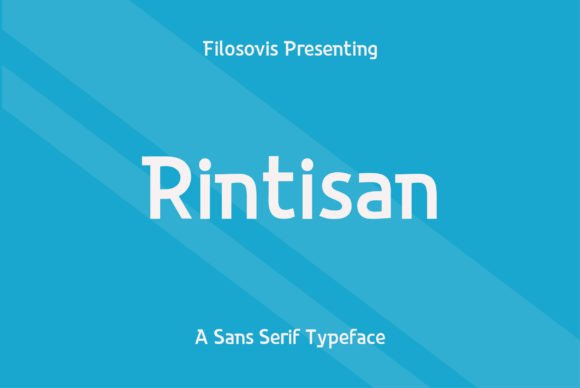
Journey into the realm of visual artistry, where the boundaries of creativity dissolve and the power of fonts unveils a world of boundless possibilities. Allow us to introduce you to the extraordinary Rintisan Font, a masterpiece crafted with meticulous care to redefine the art of modern logos and typography.
The Rintisan Font, a sans serif masterpiece, transcends the ordinary and propels you into a realm of distinctive visual storytelling. Its sharp edges and clean lines exude an aura of elegance, effortlessly elevating your designs and capturing the essence of contemporary aesthetics.
Picture this: your brand's logo, adorned with the Rintisan Font, becoming an emblem of sophistication and innovation. Its sleek curves and confident strokes command attention, leaving an indelible impression on your audience. Witness the transformation as your marketing materials, website, and social media presence radiate with a captivating essence that sets you apart from the mundane.
The Rintisan Font is a versatile chameleon, seamlessly adapting to a myriad of creative endeavors. Whether you're a seasoned designer seeking to elevate your projects or a budding entrepreneur yearning for a distinctive brand identity, this font is your steadfast companion. Unleash your imagination and let the Rintisan Font ignite the spark of brilliance within your designs.
Experience the allure of Rintisan Font and witness how it effortlessly captivates your audience, leaving them spellbound by your brand's magnetic pull. Its modern allure transcends time, ensuring your designs remain relevant and captivating, even as trends ebb and flow.
Embrace the Rintisan Font and embark on a creative odyssey where boundaries dissolve and your vision takes flight. Let its clean lines and captivating presence ignite your passion and unveil the boundless possibilities that await you in the world of modern design.